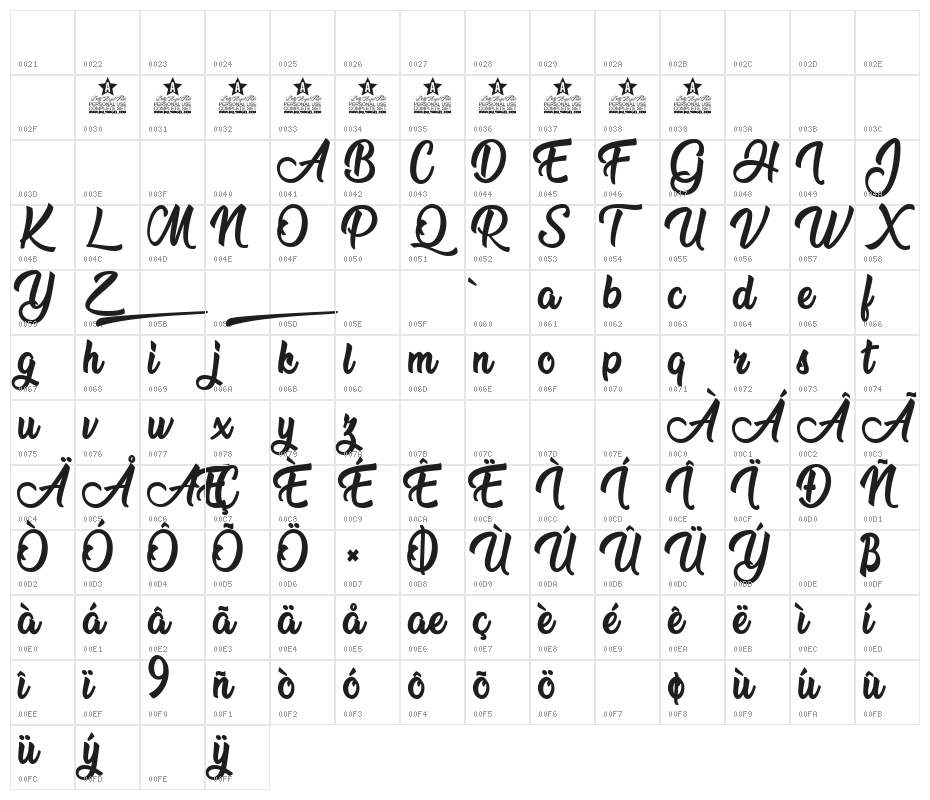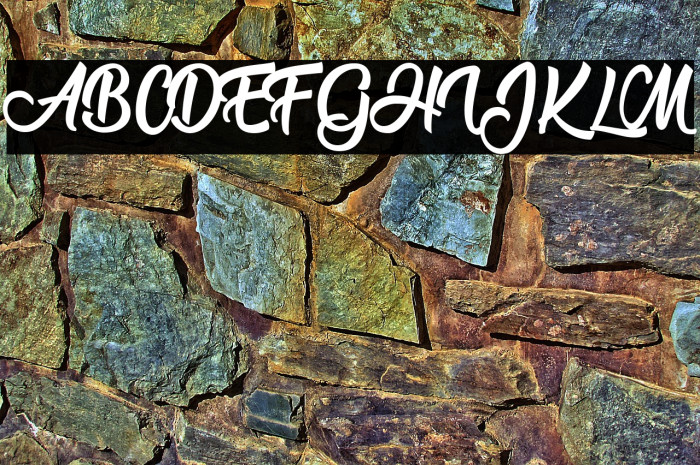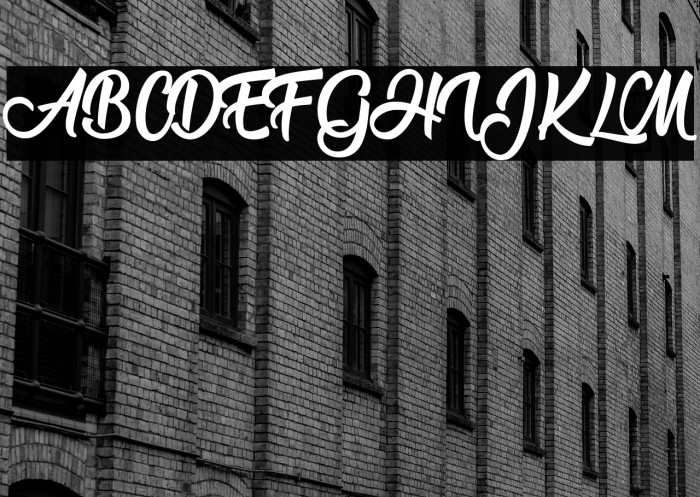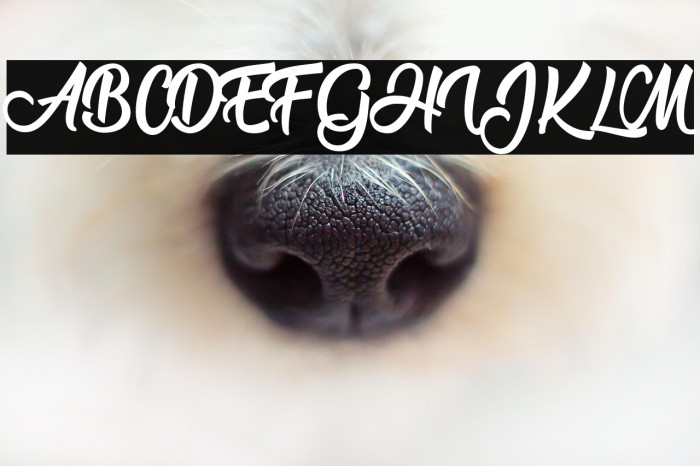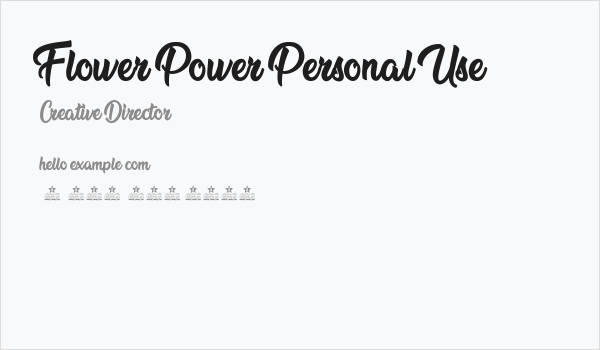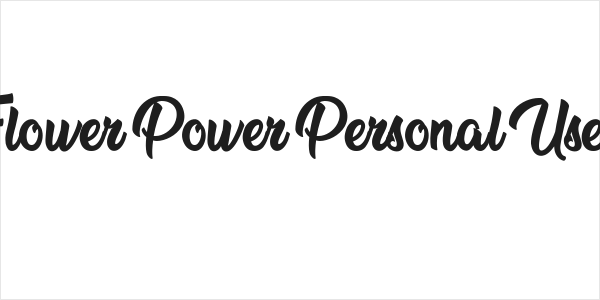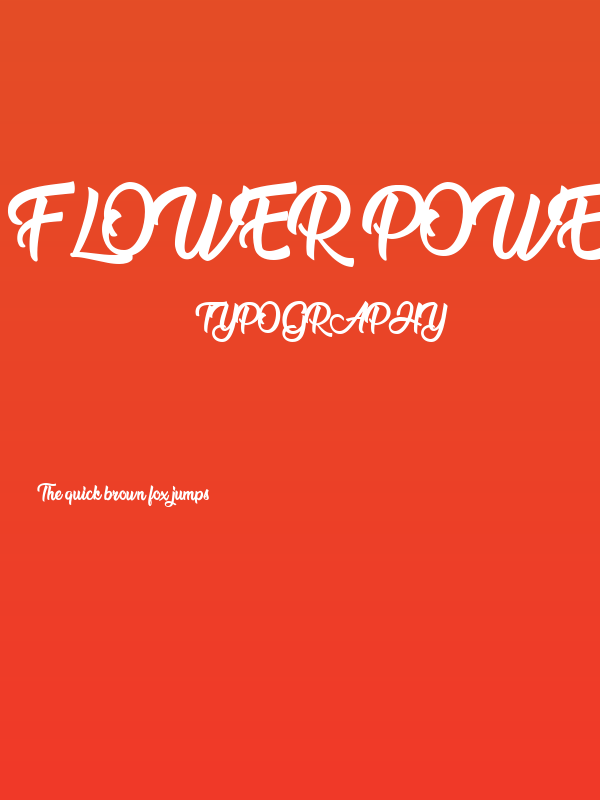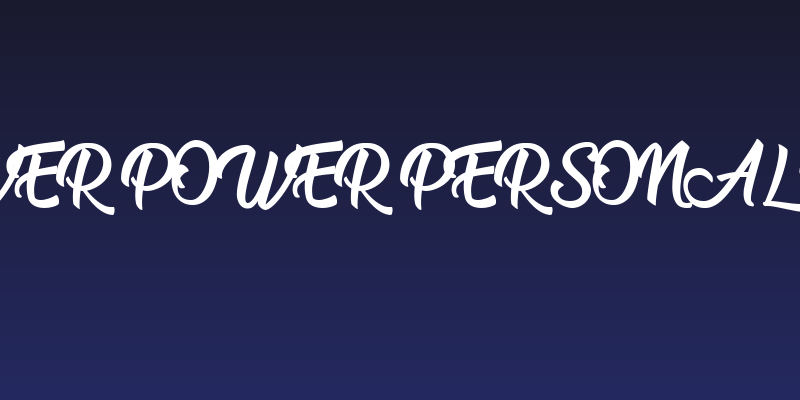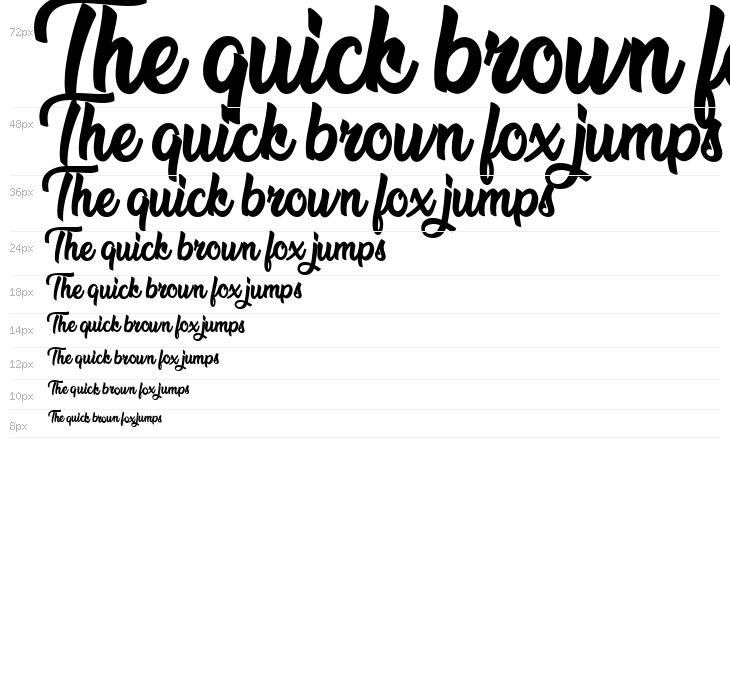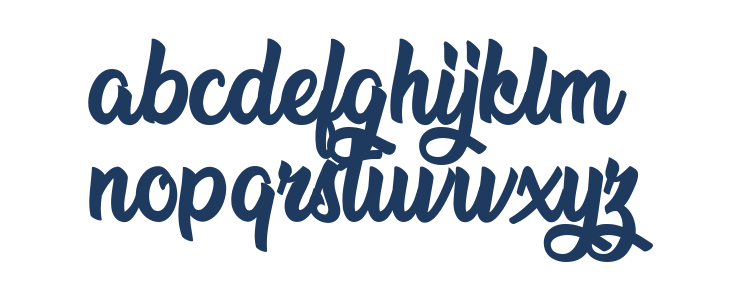
Flower Power Personal Use Font
Flower Power Personal Use Description
This font features a bold and flowing script style with a playful and energetic vibe. The uppercase letters are elegantly curved, with a slight slant that adds a dynamic feel. The lowercase letters maintain a consistent flow, creating a harmonious and connected appearance. The strokes are thick and confident, giving the font a strong presence. The overall design is reminiscent of hand-lettered calligraphy, making it suitable for projects that require a personal touch. The font's decorative nature makes it ideal for creative and expressive designs.
| Use Case | Logos, Headlines, Invitations |
| Proposed Projects | Ideal for greeting cards, invitations, logos, and branding materials that require a personal and artistic touch. |